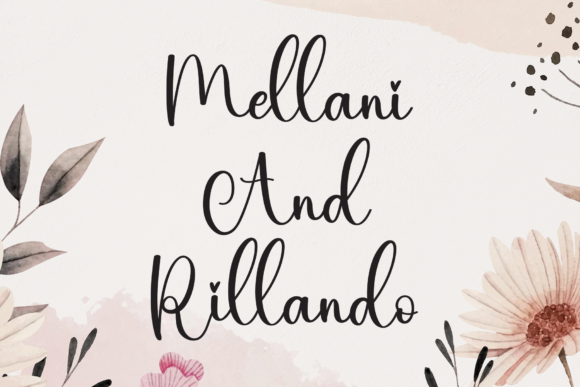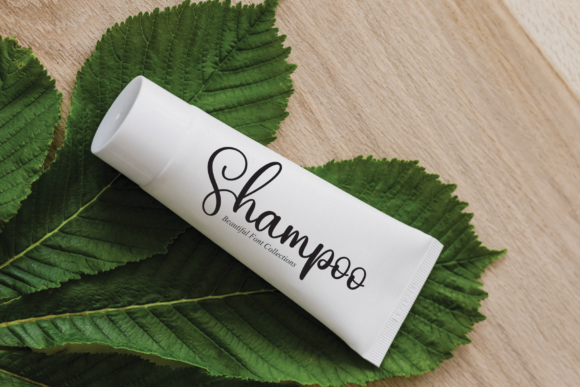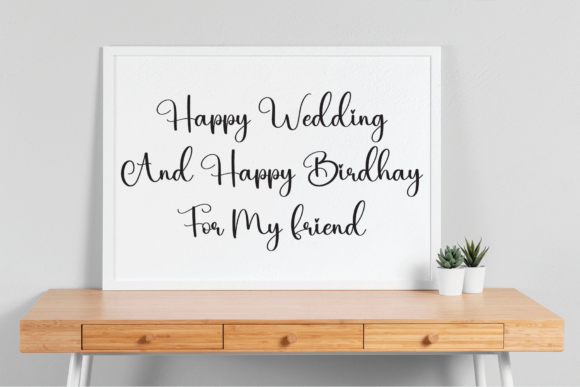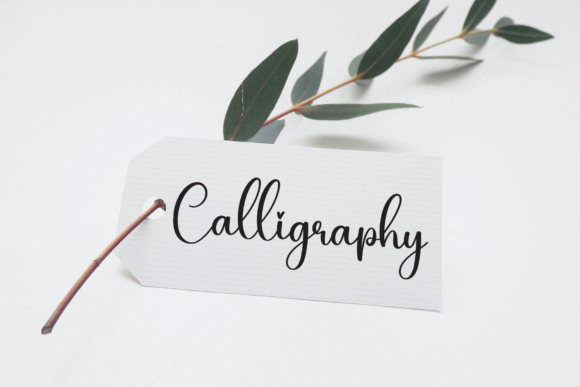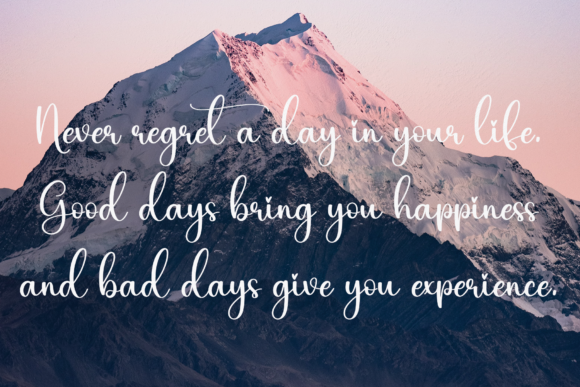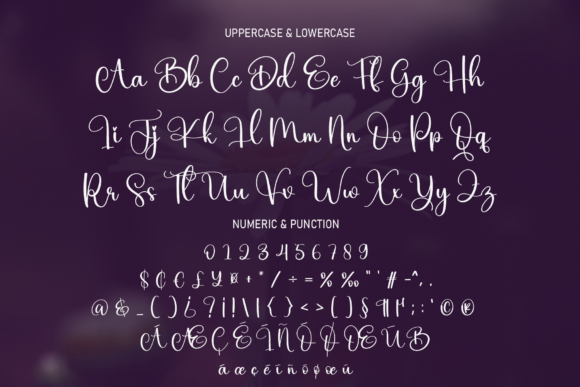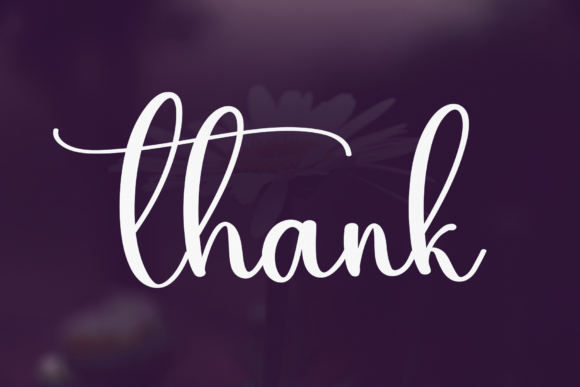
Daisy Font
About Daisy Font
Daisy’s letters embody perfection, making them an exquisite choice for an array of creative endeavors. Their versatility extends across a spectrum of applications, from wall displays to wedding invitations, social media post logos, advertisements, product packaging, designs, labels, photography, watermarks, invitations, stationery, and any project that craves a tasteful, handwritten touch.
In the realm of visual storytelling, Daisy’s letters are an asset, capturing attention with their flawless design. Whether adorning a gallery wall or forming the basis of a wedding invitation suite, these letters exude a timeless charm that elevates any creative pursuit.
For social media enthusiasts, Daisy’s letters become the signature style that sets your content apart. Incorporate them into logos for posts and profiles, adding a touch of personalization that resonates with authenticity. The elegant curves and deliberate strokes of Daisy’s handwriting lend themselves seamlessly to the digital landscape, creating a harmonious blend of classic and contemporary aesthetics.
In the world of marketing, Daisy’s letters are a secret weapon. Elevate your advertisements with the grace of handwritten script, making your product packaging and designs not just visually appealing, but emotionally resonant. The letters bring forth a unique charm that speaks to craftsmanship and attention to detail, setting your brand apart from the mundane.
Whether applied to labels or watermarks, Daisy’s letters are a testament to their adaptability. Their handwritten allure transforms these functional elements into design features, contributing to a cohesive and sophisticated visual identity. The result is a harmonious blend of artistry and practicality, a balance that defines Daisy’s letters.
Invitations and stationery take on a new level of refinement when graced with Daisy’s letters. The handwritten taste imparts a sense of intimacy and care, making each piece a work of art in itself. From formal invitations to casual notes, every word gains a touch of elegance that resonates with the recipient.
In essence, Daisy’s letters transcend the boundaries of conventional design. With 400 words or fewer, it’s challenging to fully capture the depth of their impact across various projects. Whether enhancing a wall display, conveying the essence of a wedding invitation, or imparting a distinct flavor to product packaging, Daisy’s letters are a testament to the enduring allure of handwritten artistry.